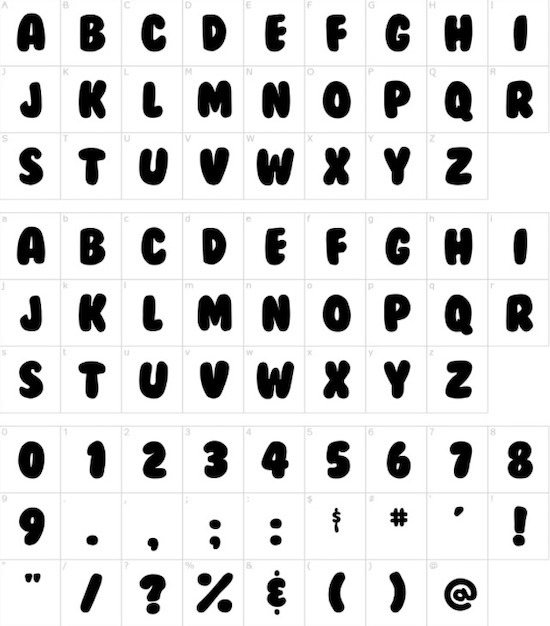
Bubblegum font
Bubblegum font is a great flexible groovy style script, it was designed by Thomas W. Ziller. The character of this fancy font is very casual and simple, along with that it’s easy to read even from a far distance, or with a quite small size. An interesting cartoon typeface, its styling is fun and funny. You can come up with many unique design ideas as soon as you see this charming font.
Bubblegum font can also be perfectly used for a book cover with children-themed topic or everything cheerful, such as comic, cartoon, funny movies, and more.